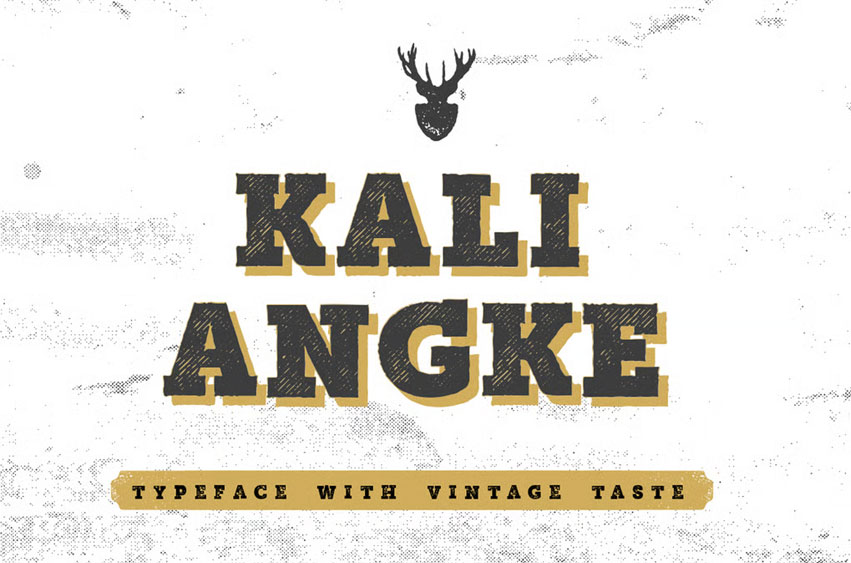
Mutiara Vintage Font
Mutiara Vintage Font is a typeface with vintage taste, including 4. font.
The font family is slab, bold, rough, multilingual supported and was completely 54 alternate character. best to your typography, headline, t-shirt design.